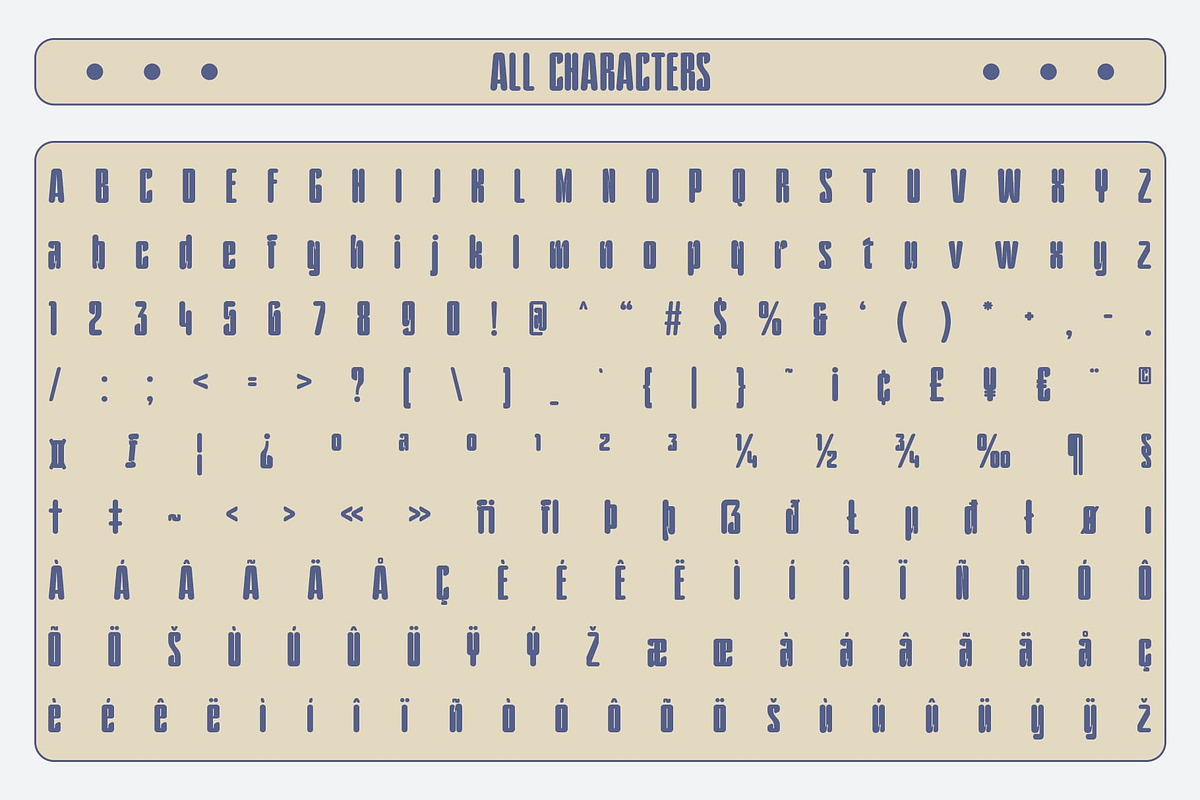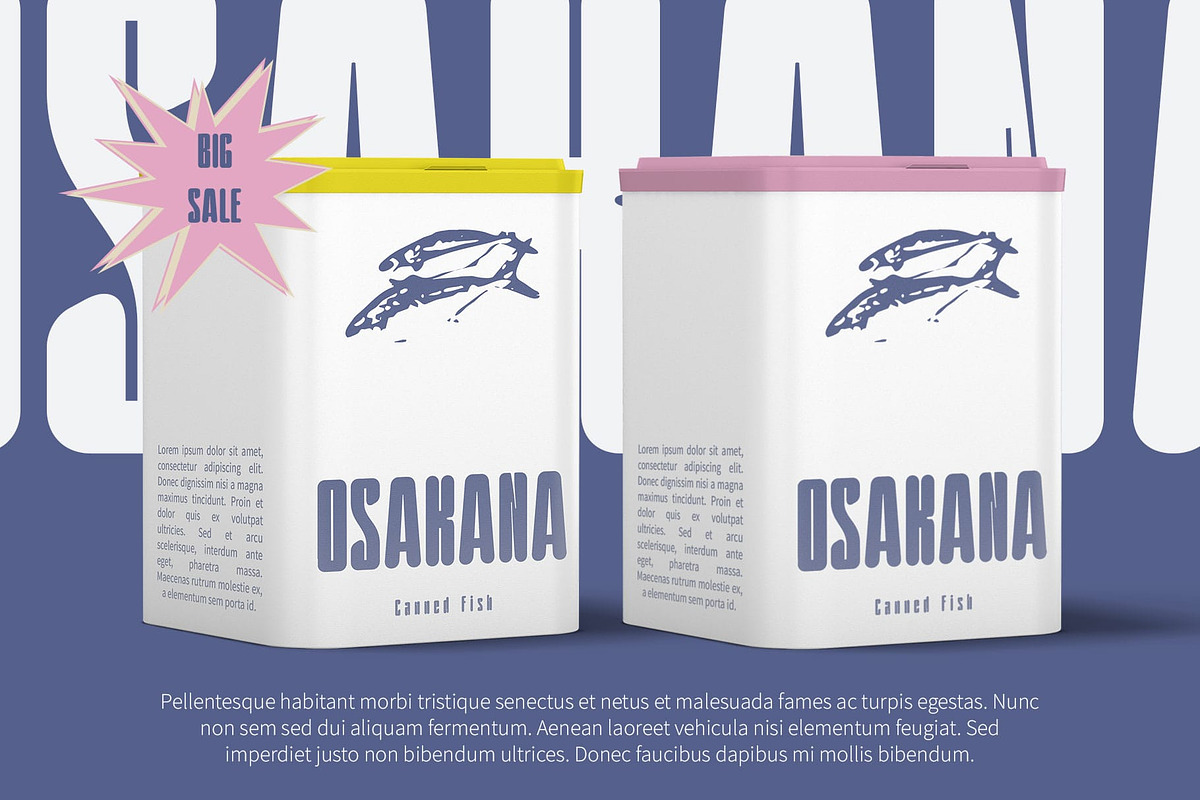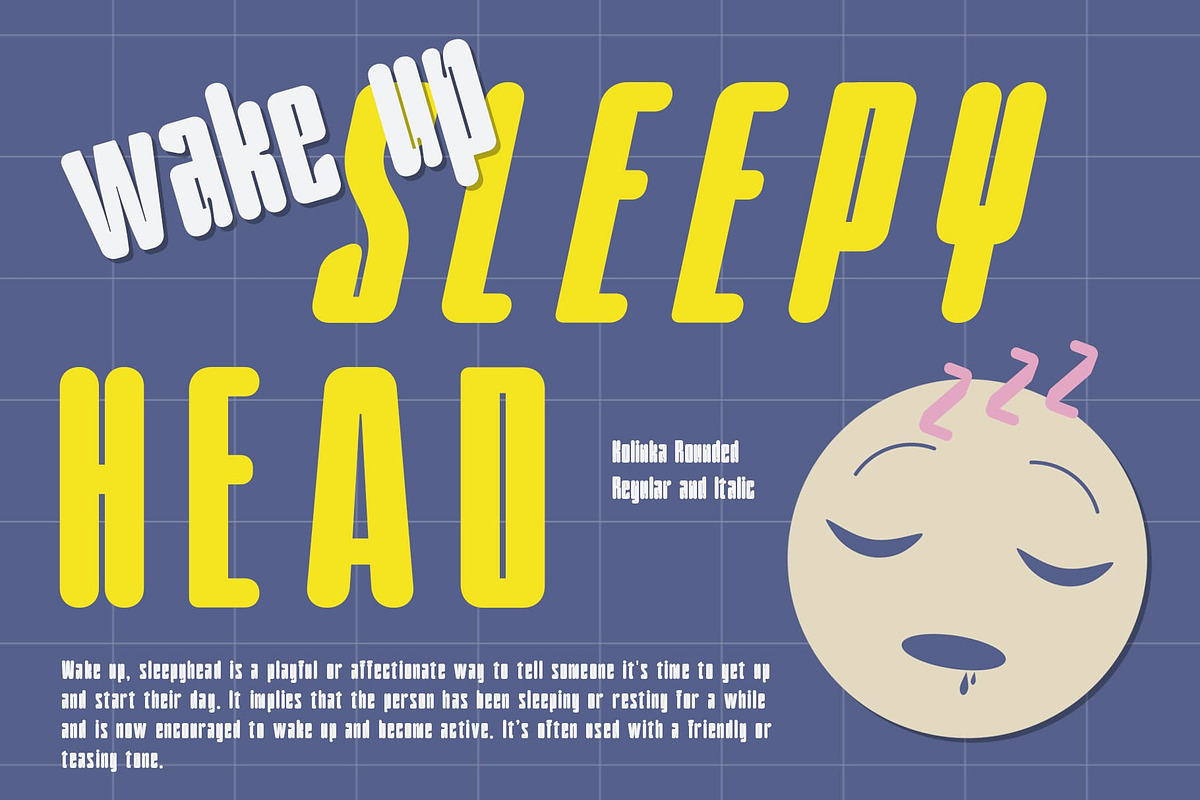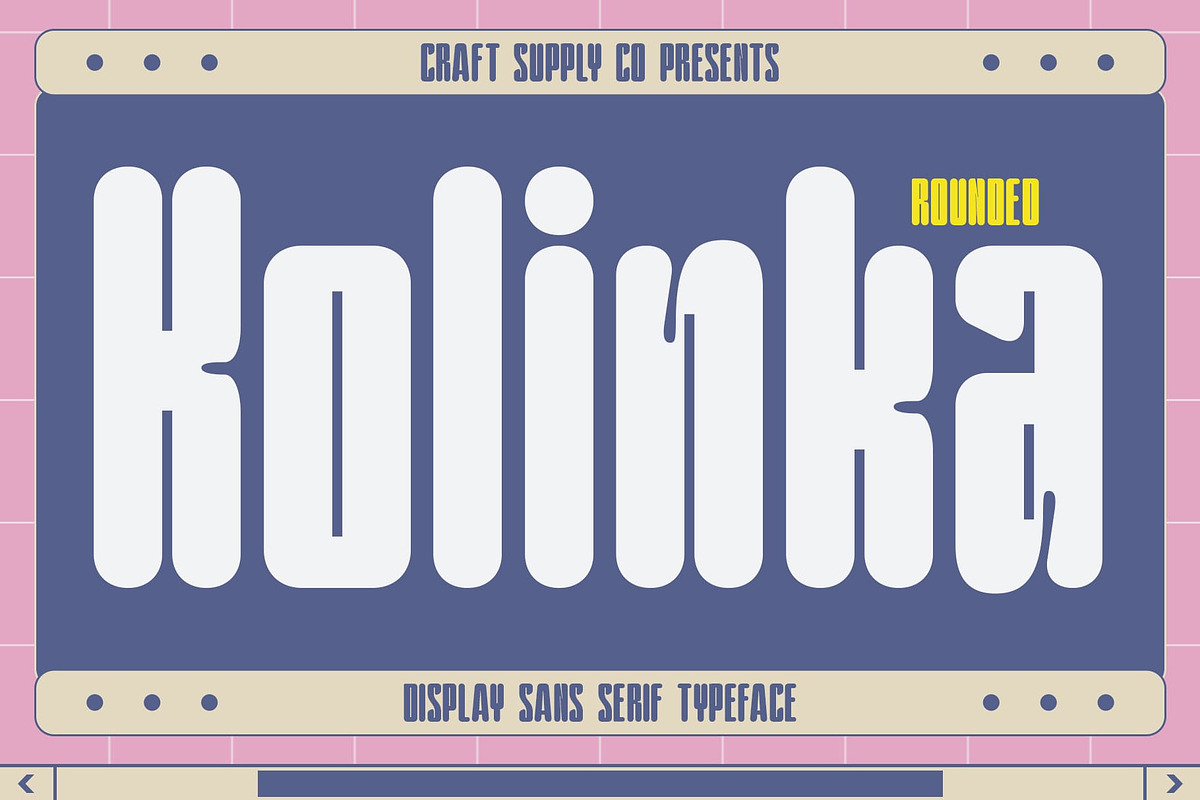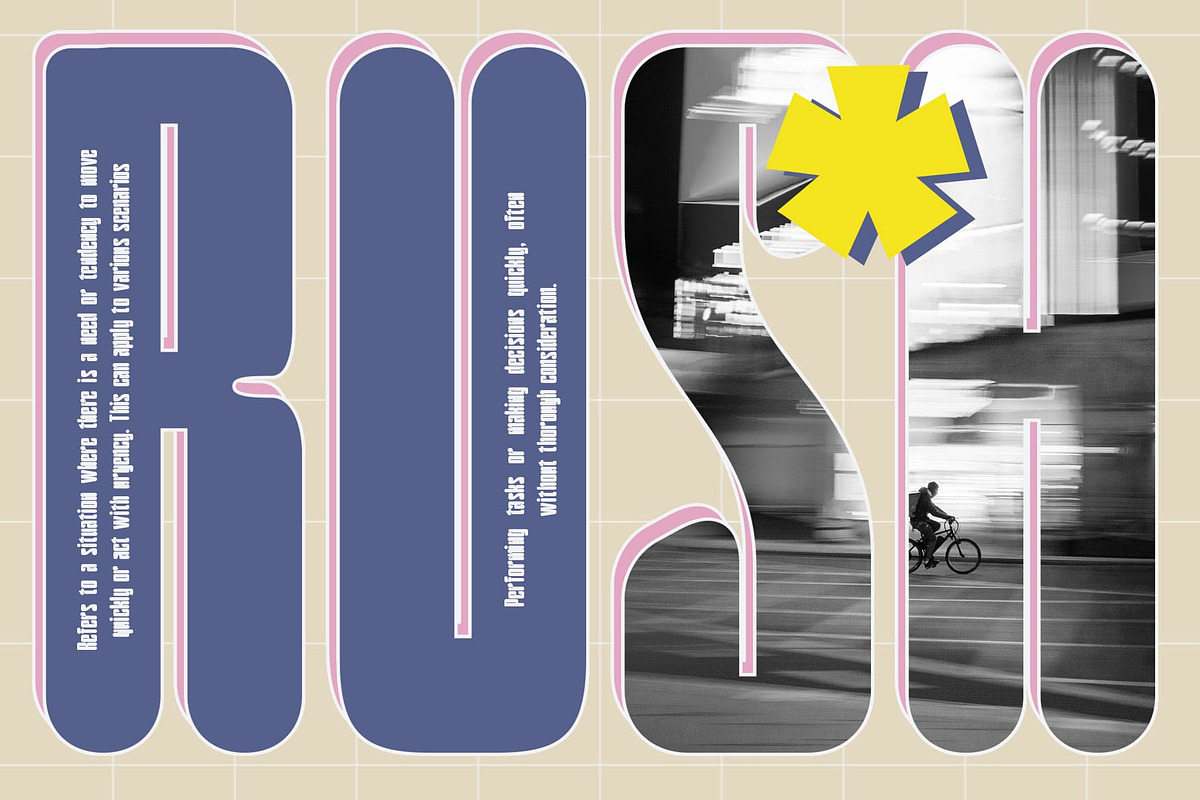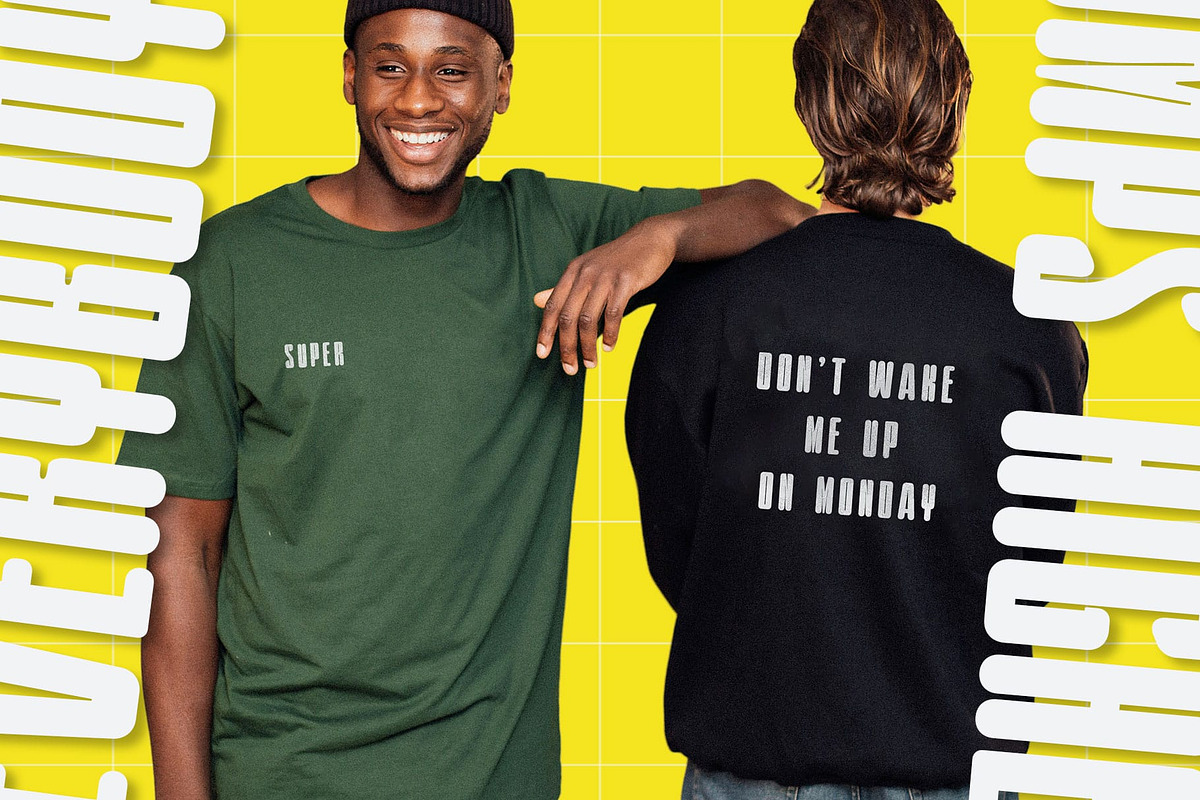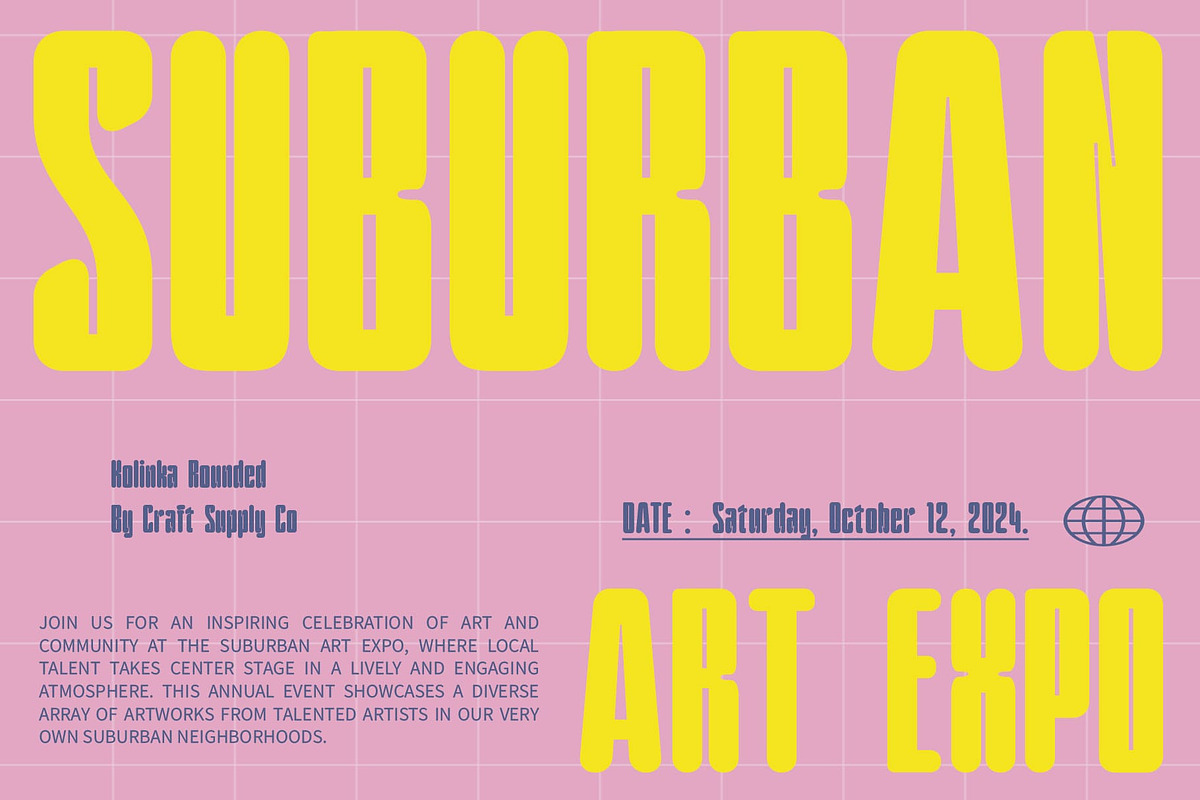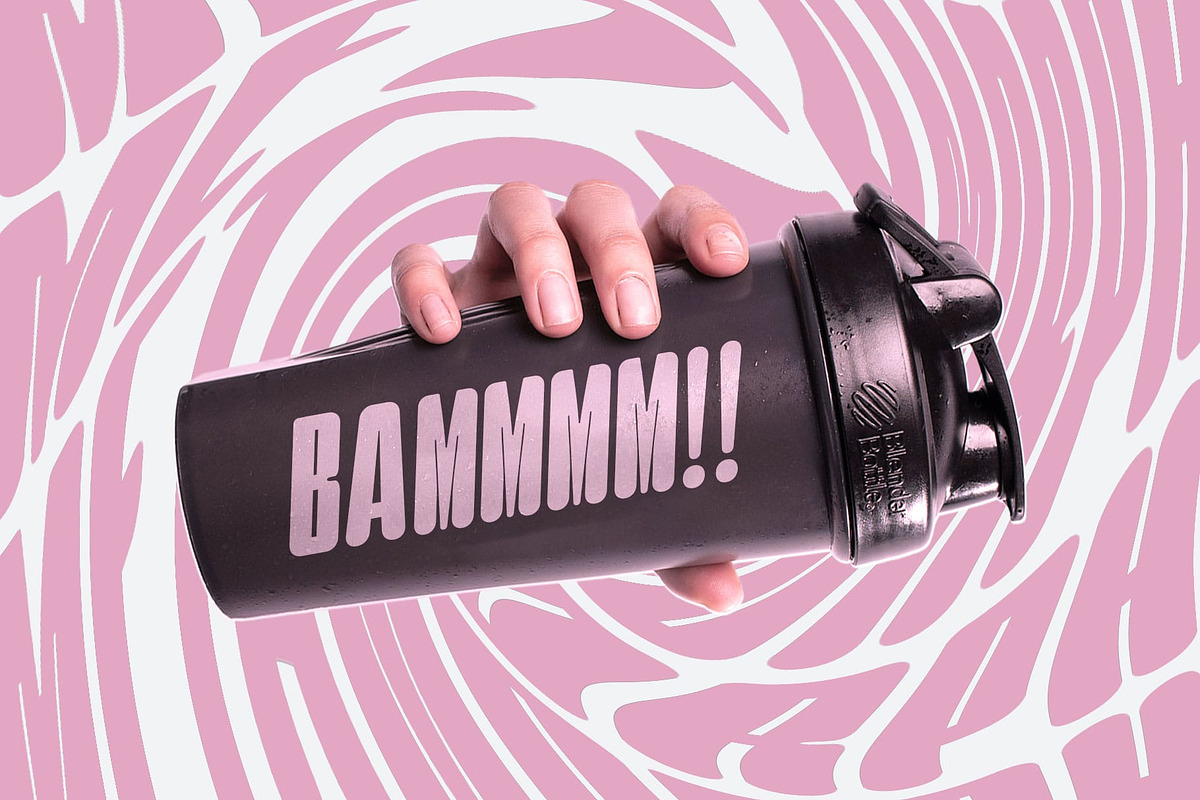
Kolinka Rounded
Kolinka Rounded – Bold Sans-Serif Font: Strength Meets Approachability
Striking Balance of Boldness and Softness Kolinka Rounded is a bold sans-serif font that masterfully combines inktrap and rounded forms. The inktraps introduce sharpness and clarity, ensuring enhanced legibility in both print and digital formats, while the rounded edges soften the overall look, creating a friendly and modern aesthetic.
Versatile Design for Various Applications Perfect for branding, headlines, and packaging, Kolinka Rounded delivers a strong yet welcoming impression. Its unique balance of boldness and approachability makes it ideal for tech-oriented projects as well as consumer-focused designs, providing versatility across a wide range of creative applications.
Bold and Modern with a Friendly Touch Kolinka Rounded is designed to make an impact while remaining approachable. Whether you’re aiming to create a striking headline or develop a brand identity that feels both strong and inviting, this font offers the perfect blend of modernity and warmth.
- Kolinka Rounded Regular
- Kolinka Rounded Italic